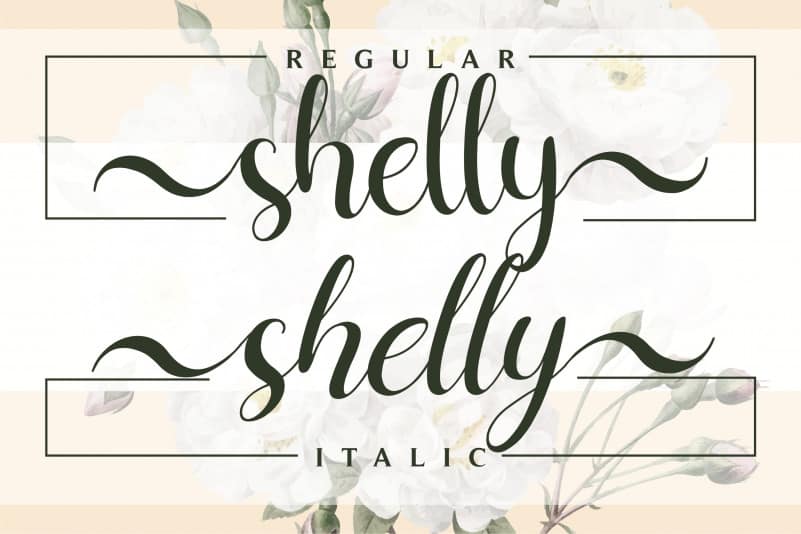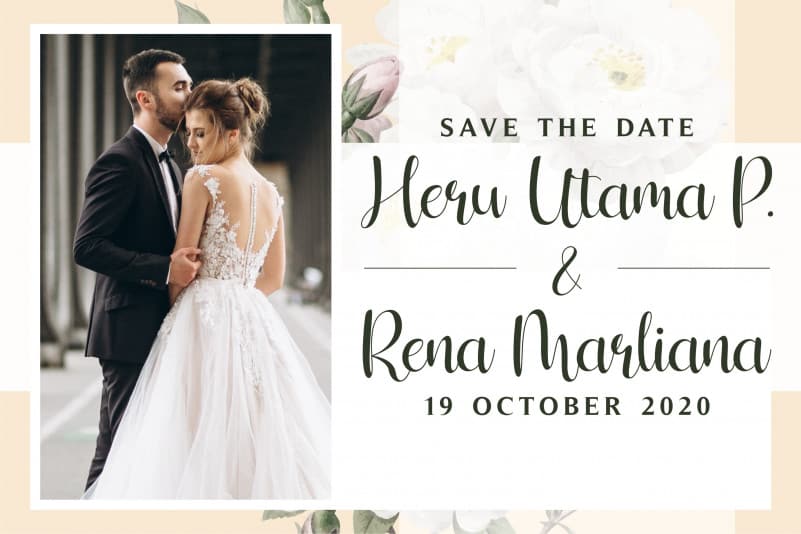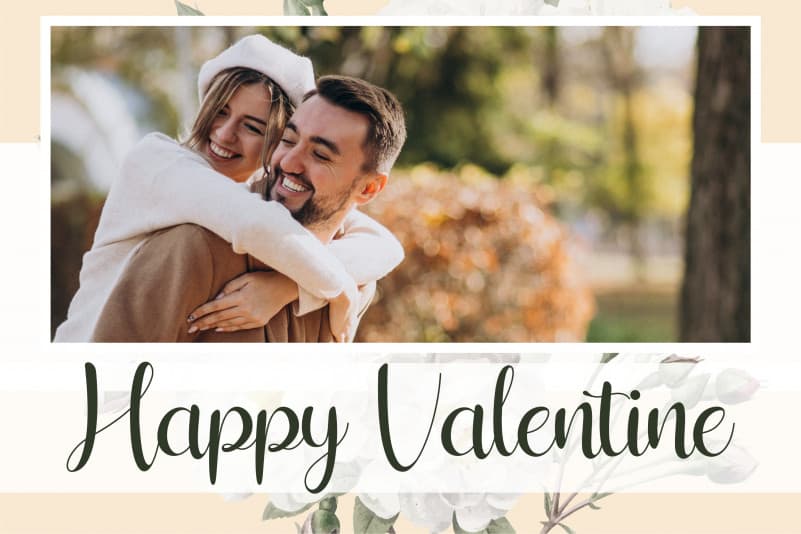
Shelly Calligraphy Font
Shelly Calligraphy Font is a beautiful, flowing and romantic handwritten font. It maintains its classy calligraphic influences while feeling contemporary and fresh. This font is PUA encoded which means you can access all of the glyphs and swashes with ease!